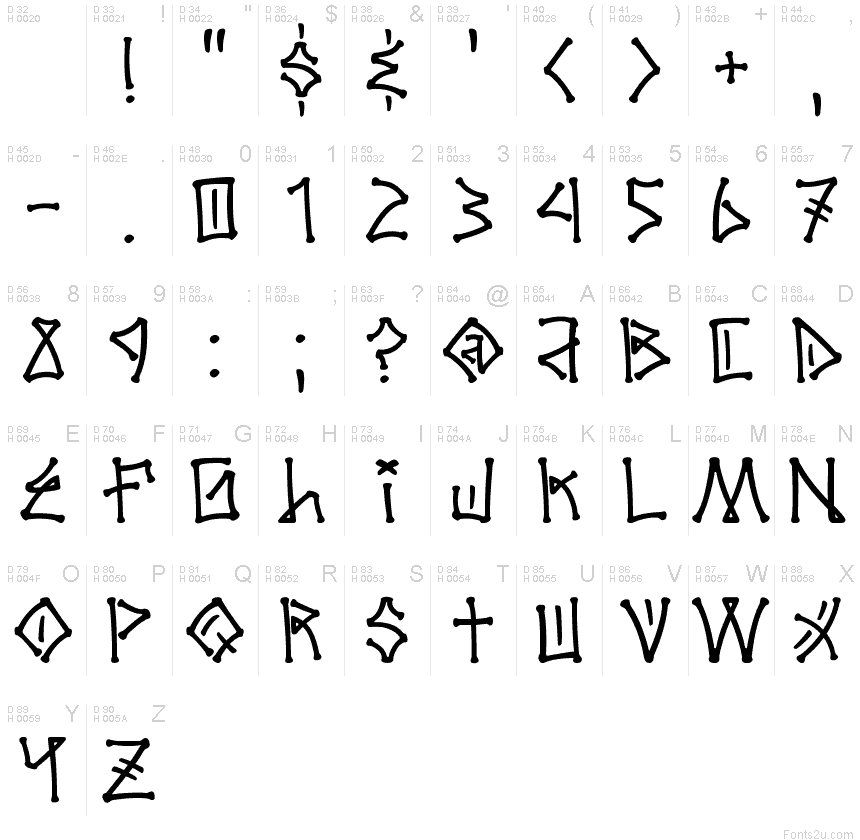
El Barrio
El Barrio font by York/Sheridan is a free graffiti font, scratched out with wiry strokes and knife-sharp angles that feel like quick tags caught in wet ink. The letters have a jagged, almost glyph-like rhythm—raw, a little chaotic, and confident enough to stand alone on a blank wall.
Using El Barrio, you’ll get instant attitude on streetwear logos, skate posters, album covers, underground event flyers, zines, stickers, mural mockups, and punchy social graphics. Set it large so the spiky details breathe, and pair it with a calm sans typeface (try Inter or Helvetica) to keep layouts readable while this free font does the shouting.
El Barrio is a typeface based on 1970's East Los Angeles graffiti.